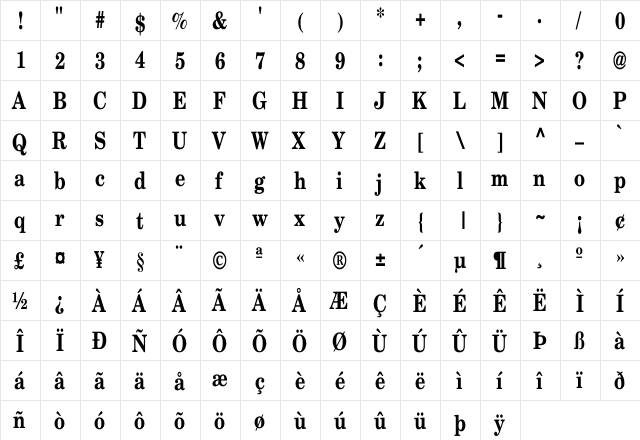
NewCenturySchlbk-Bold Cn Regular
Design Context for NewCenturySchlbk-Bold Cn Typeface
NewCenturySchlbk-Bold Cn takes a measured approach to typography — its balanced proportions and neutral character make it a reliable workhorse for both digital and print work. The heavy weight commands attention and anchors typographic hierarchies.
Pro Tip: Use NewCenturySchlbk-Bold Cn in both headline and body roles to test its range before committing to a single application.